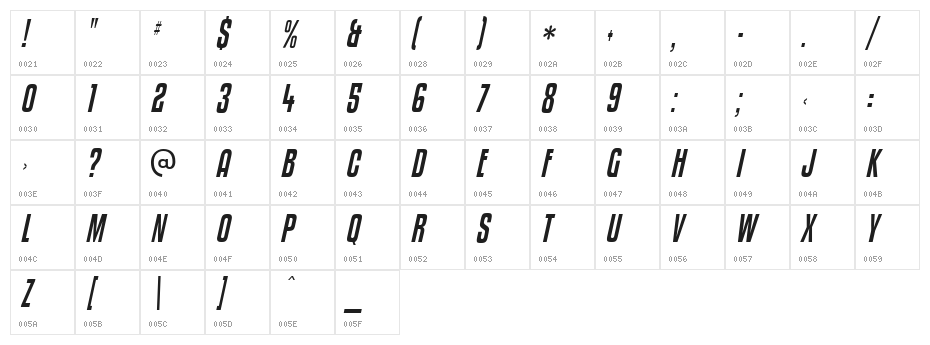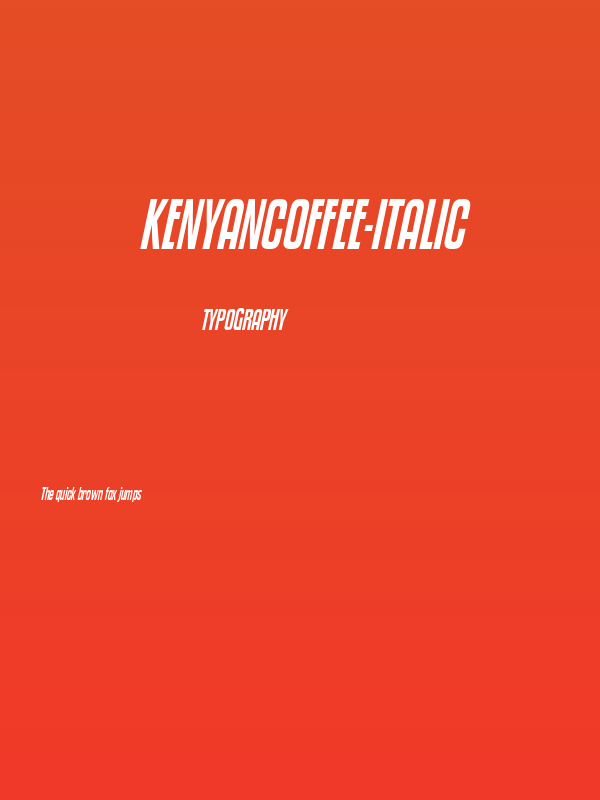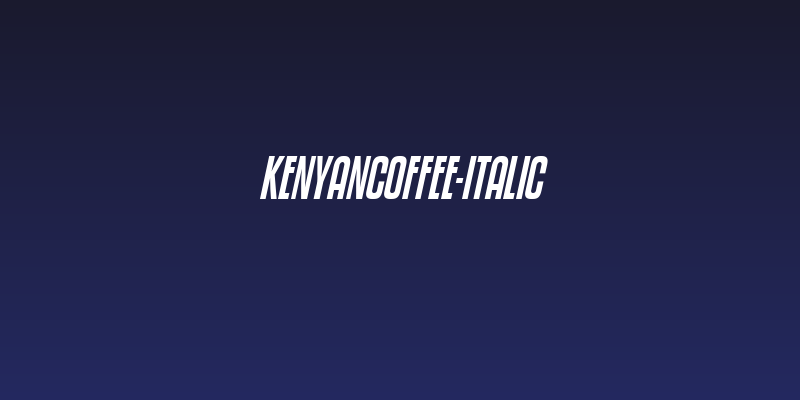
KenyanCoffee-Italic Font
KenyanCoffee-Italic Description
This font features a bold and dynamic style with a strong italic slant, giving it a sense of motion and energy. The characters are tightly spaced, enhancing its compact and impactful appearance. The strokes are consistent in thickness, providing a uniform look across all characters. Its design is modern and sleek, making it suitable for projects that require a contemporary and assertive typeface. The uppercase and lowercase letters maintain a cohesive style, while the numerals and special characters are designed to complement the overall aesthetic.
| Use Case | Headlines, Logos, Advertising |
| Proposed Projects | Ideal for sports branding, dynamic posters, modern advertising, and headlines that need to capture attention. |